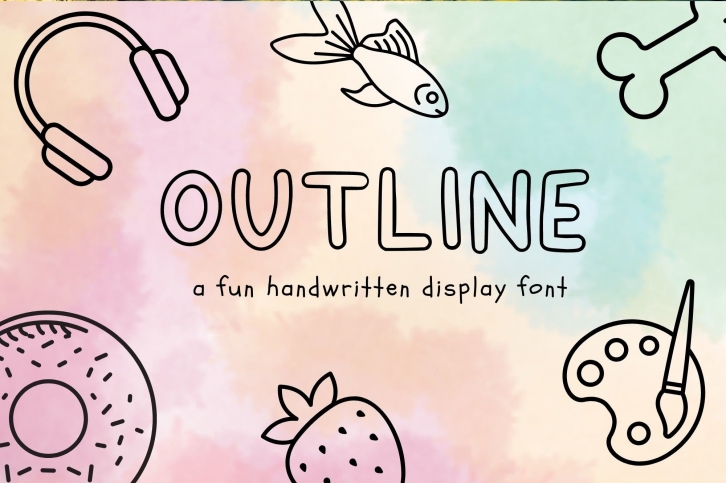
Outline is a playful and fun display font adding tons of personality to any project. It looks friendly and modern, perfect for any creative idea you have in mind!